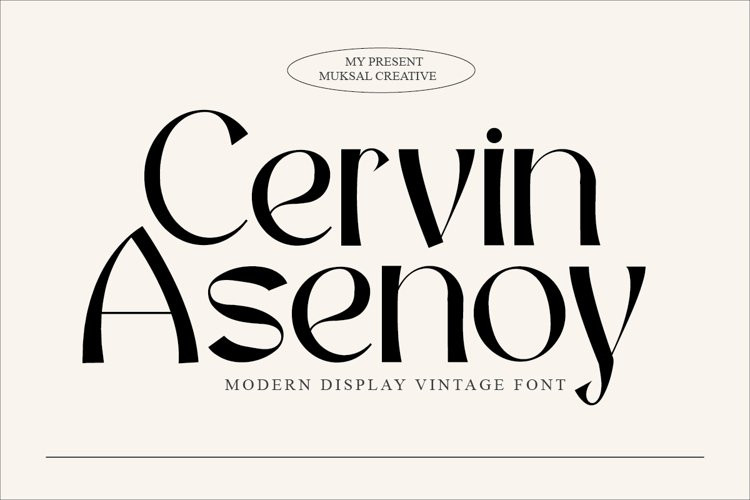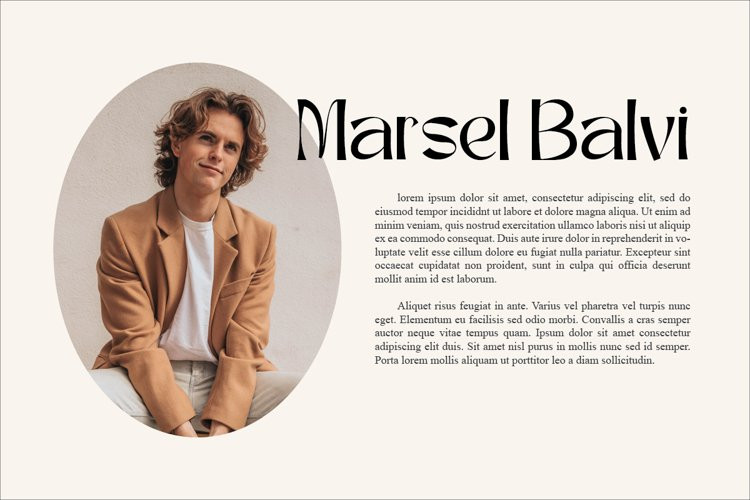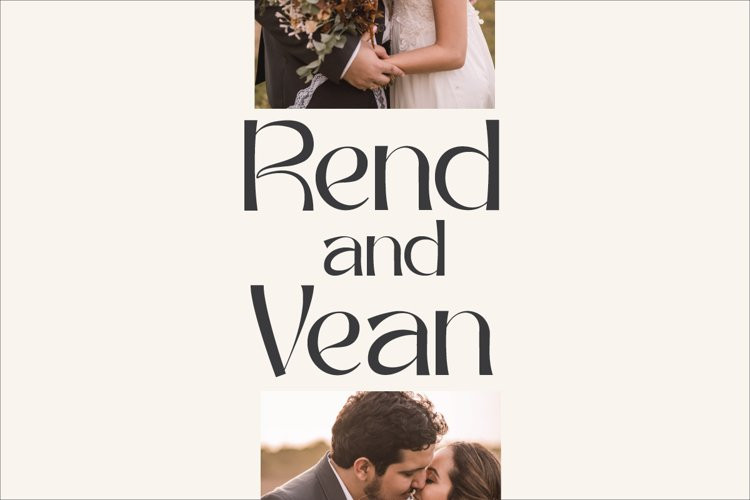
Cervin Asenoy Font
Cervin Asenoy FontCervin Asenoy is a Modern Display font created especially for projects that need vintage and Retro typography! Use it for projects like magazines, banners, stationery, branding, name tags, invitations, and more. This font is PUA encoded, which means you can access all of the glyphs and swashes with ease!